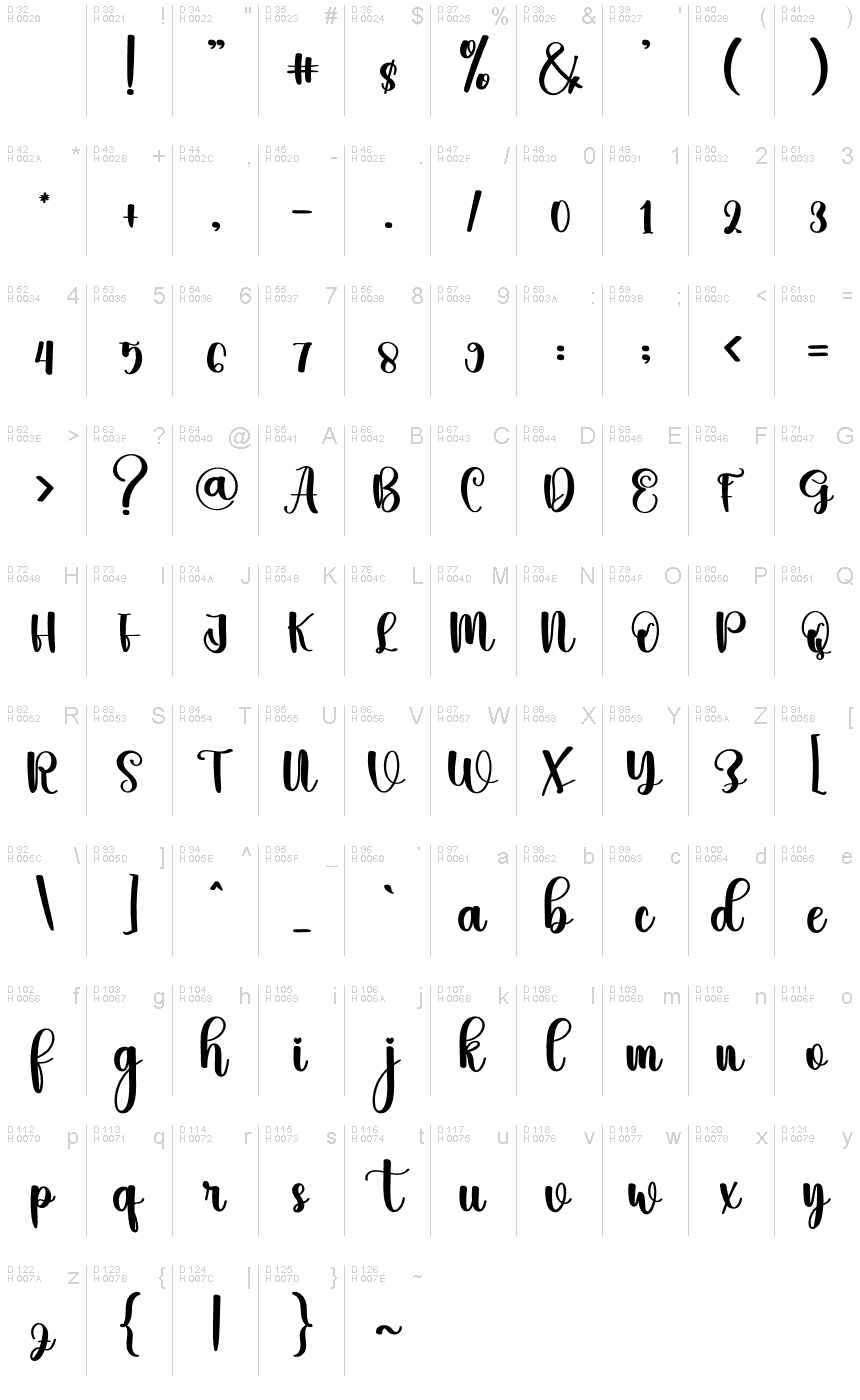
Patahhaty
Patahhaty, the exquisite calligraphy font by FreshtypeINK, adds elegance and flair to your creative projects. With its graceful strokes and intricate details, this font is perfect for invitations, wedding stationery, and luxurious branding. The Patahhaty typeface beautifully captures the essence of handwritten artistry while maintaining readability. Whether you're designing menus for high-end restaurants or crafting sophisticated logos, this font's versatility shines through. Elevate your designs with Patahhaty's timeless charm and make a lasting impression in any project that demands refined sophistication.